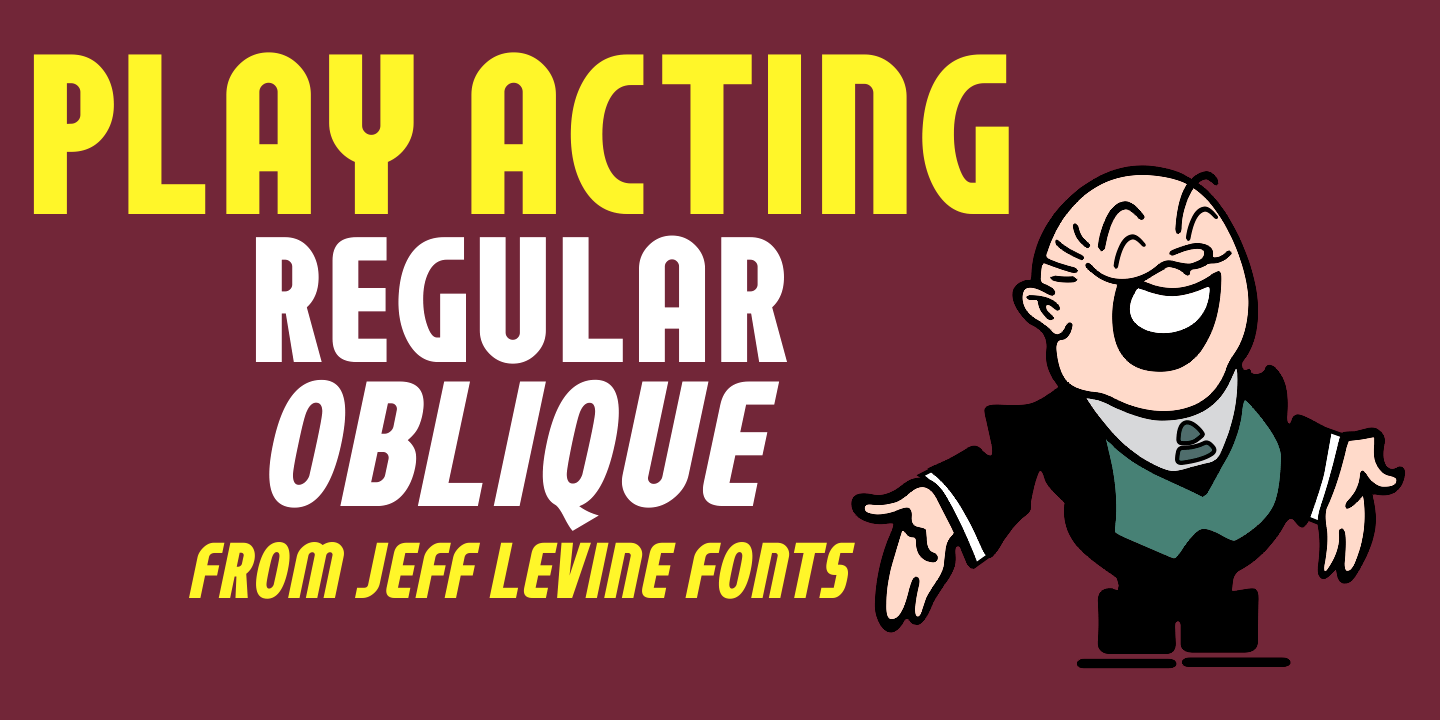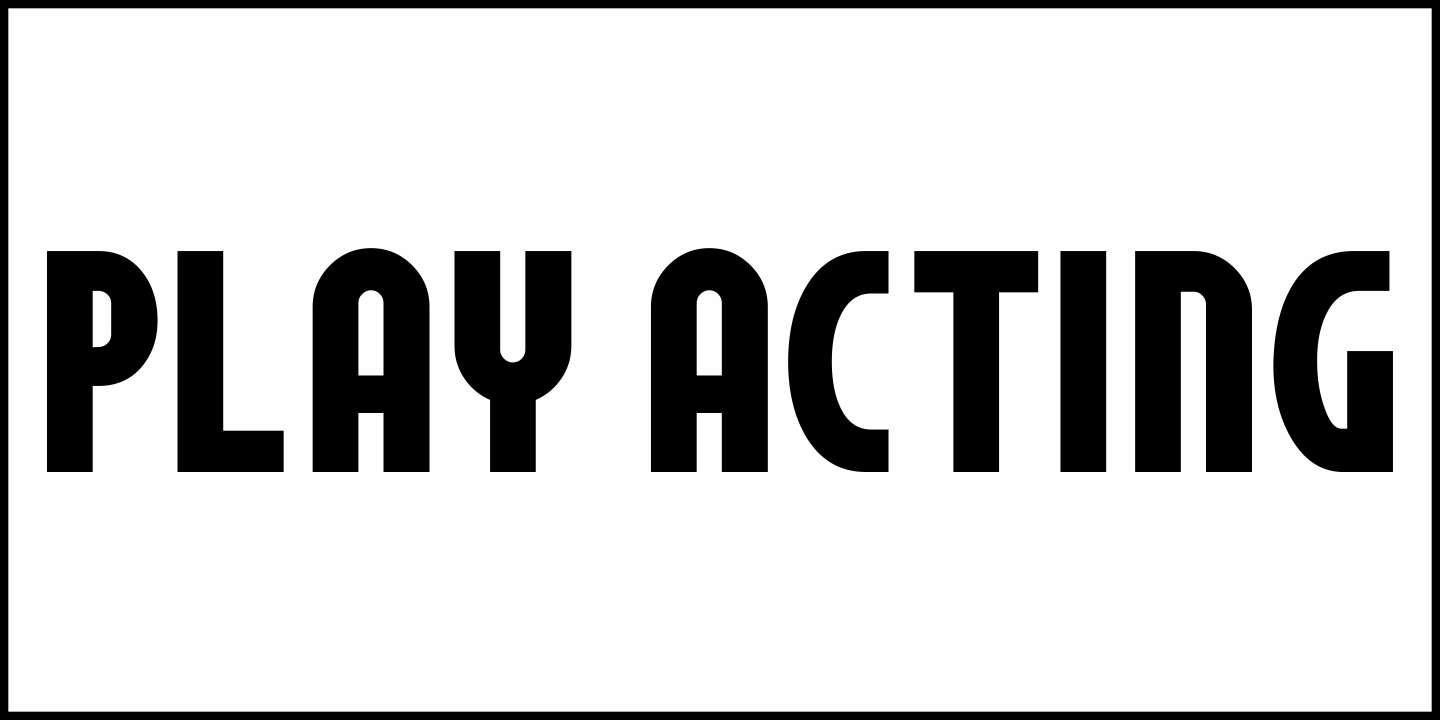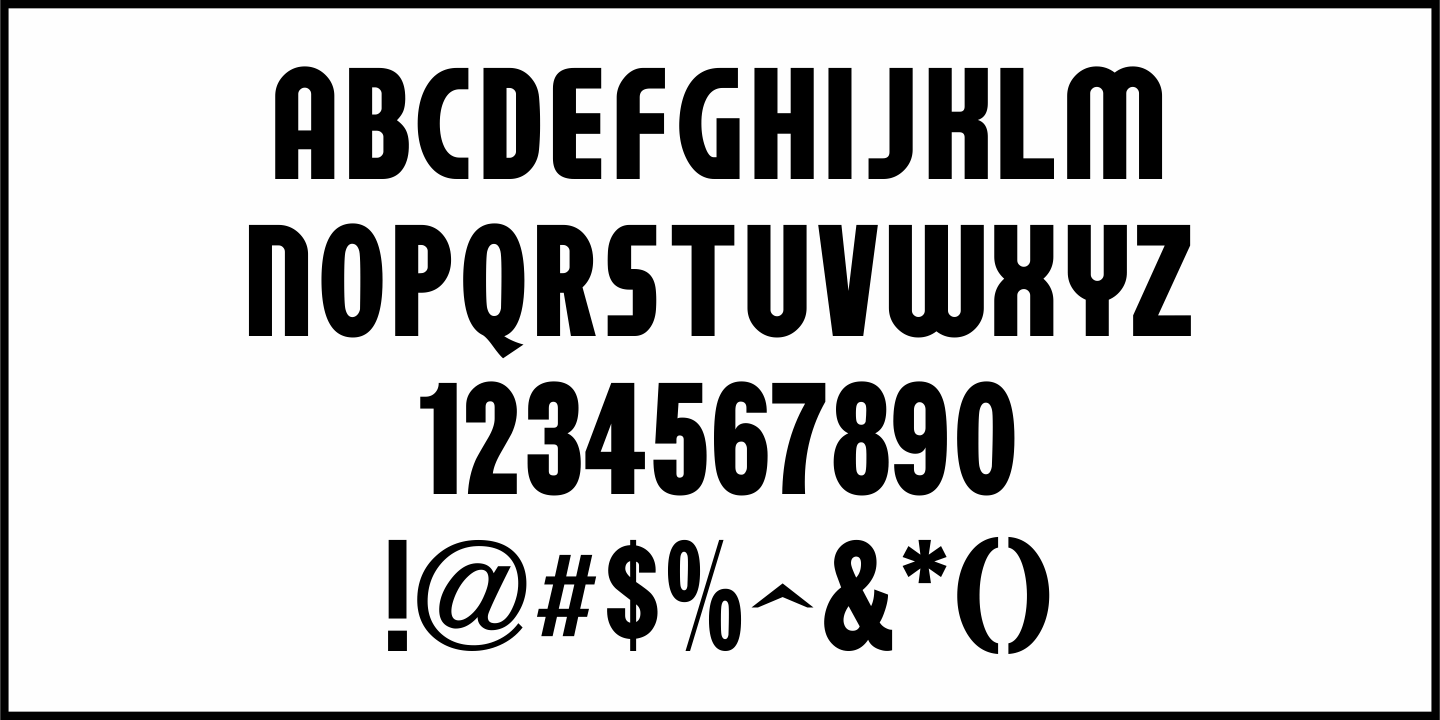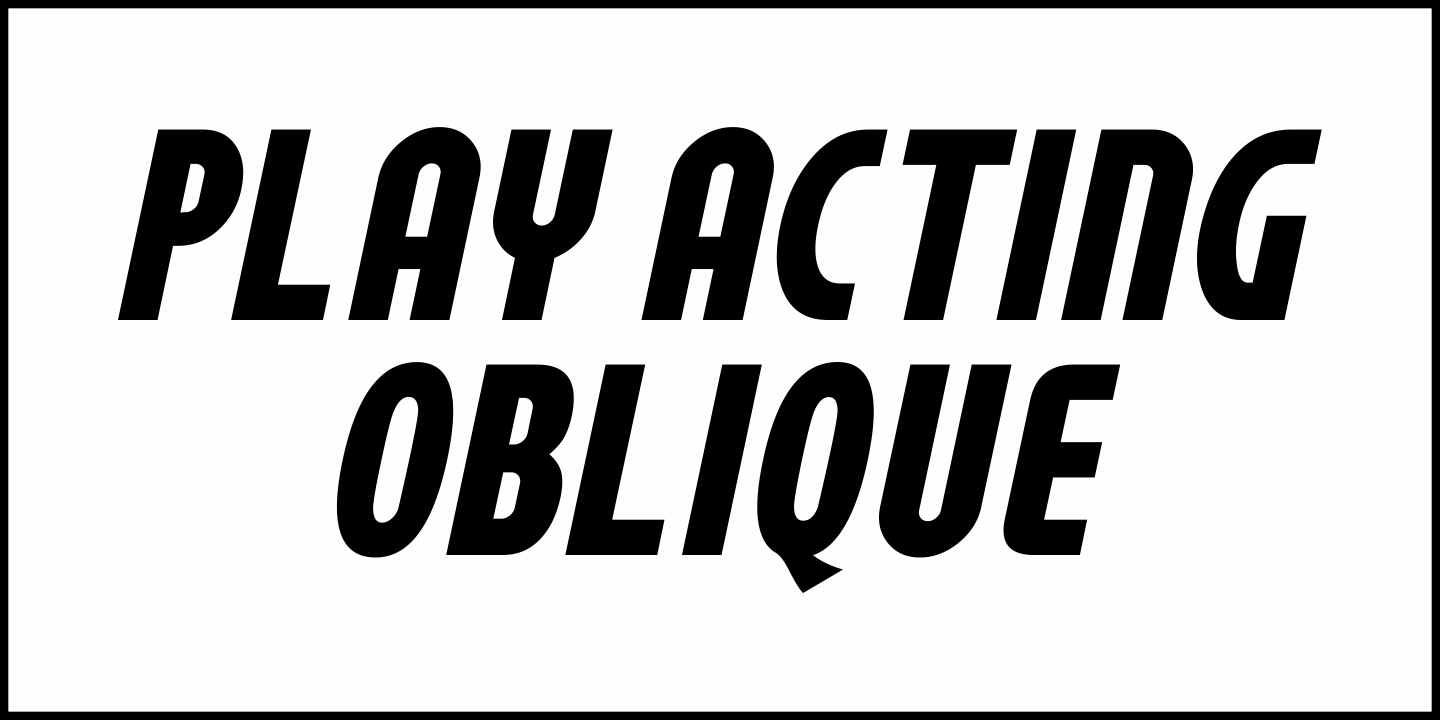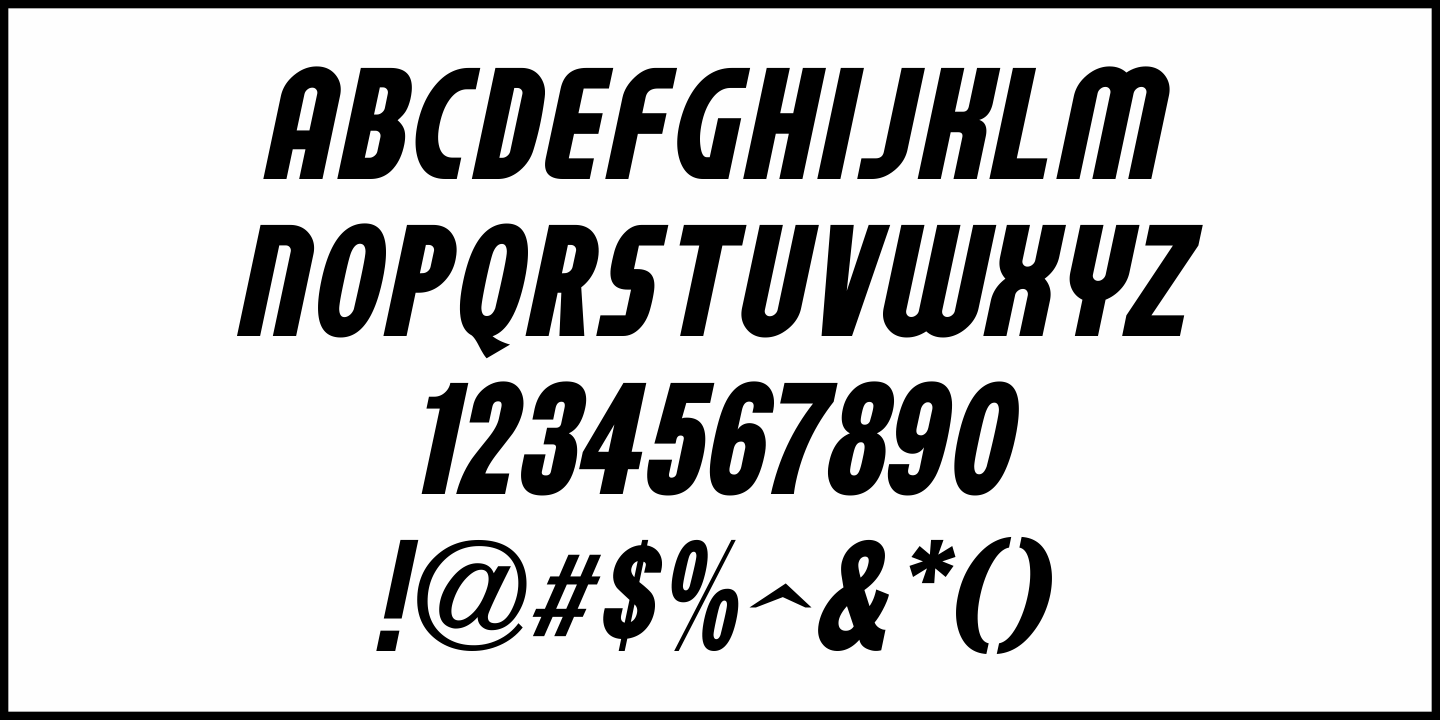
Play Acting
Modeled from an assortment of typeset headlines in numerous 1947 issues of the motion picture industry trade paper "the The Film Daily", Play Acting JNL is available in both regular and oblique versions.
This bold Art Deco sans serif design gives titles and headlines a crispness that stands out in any project.